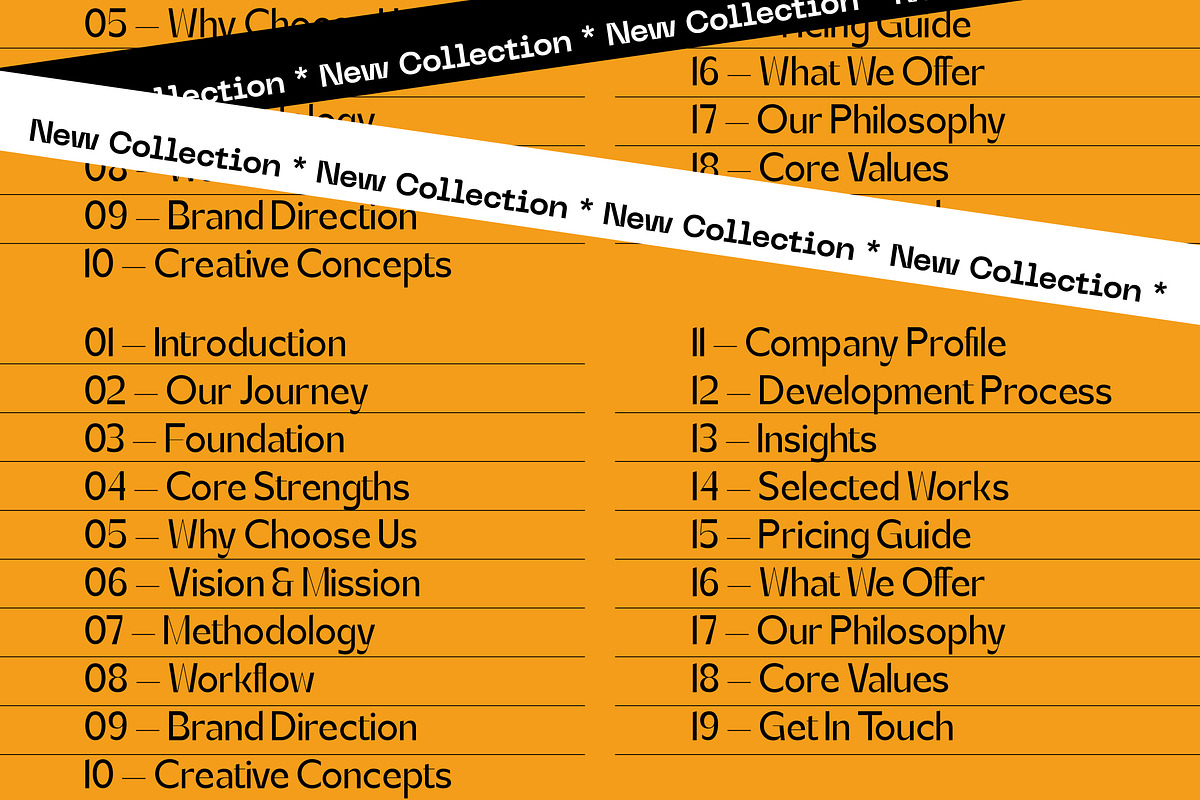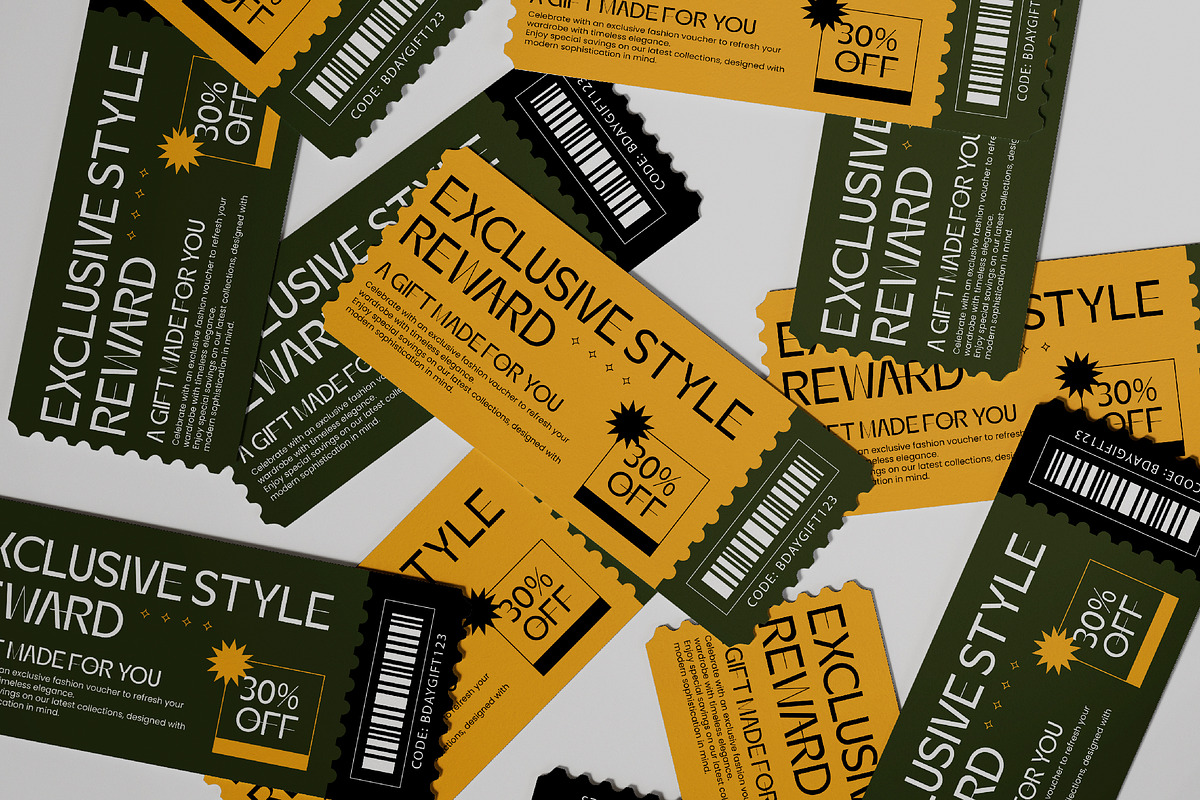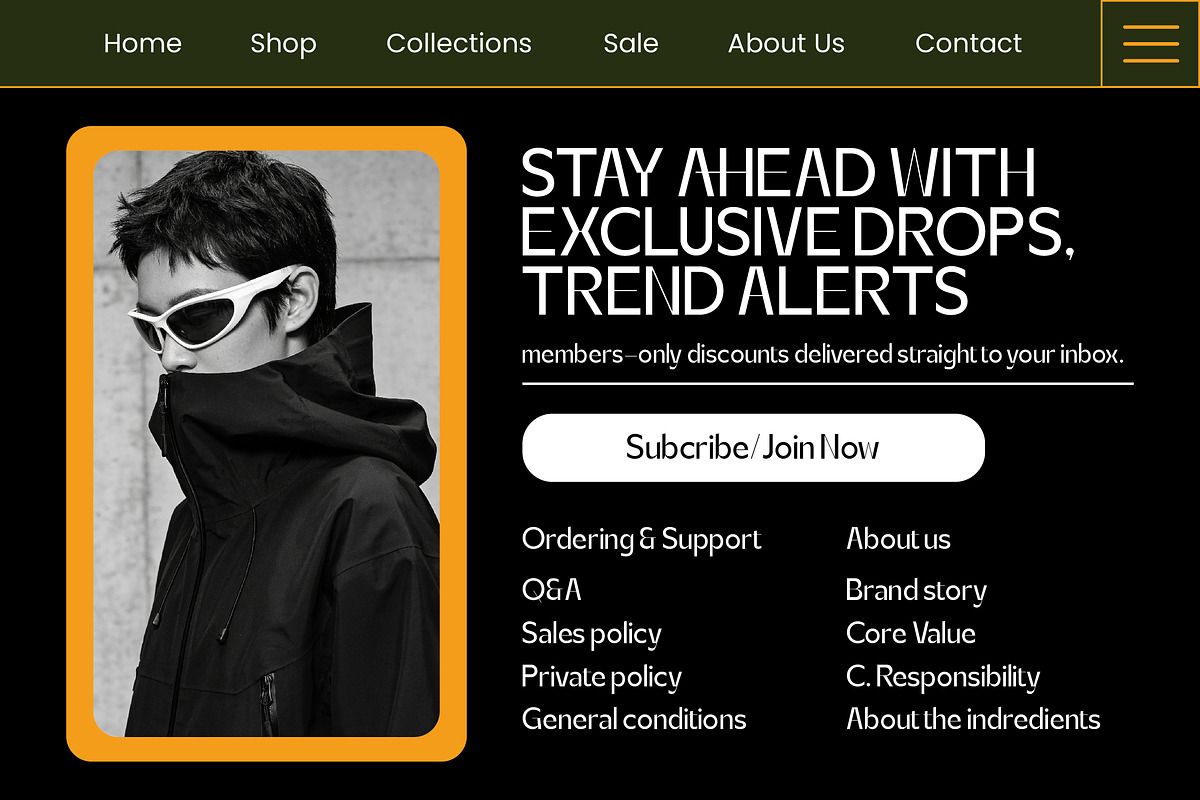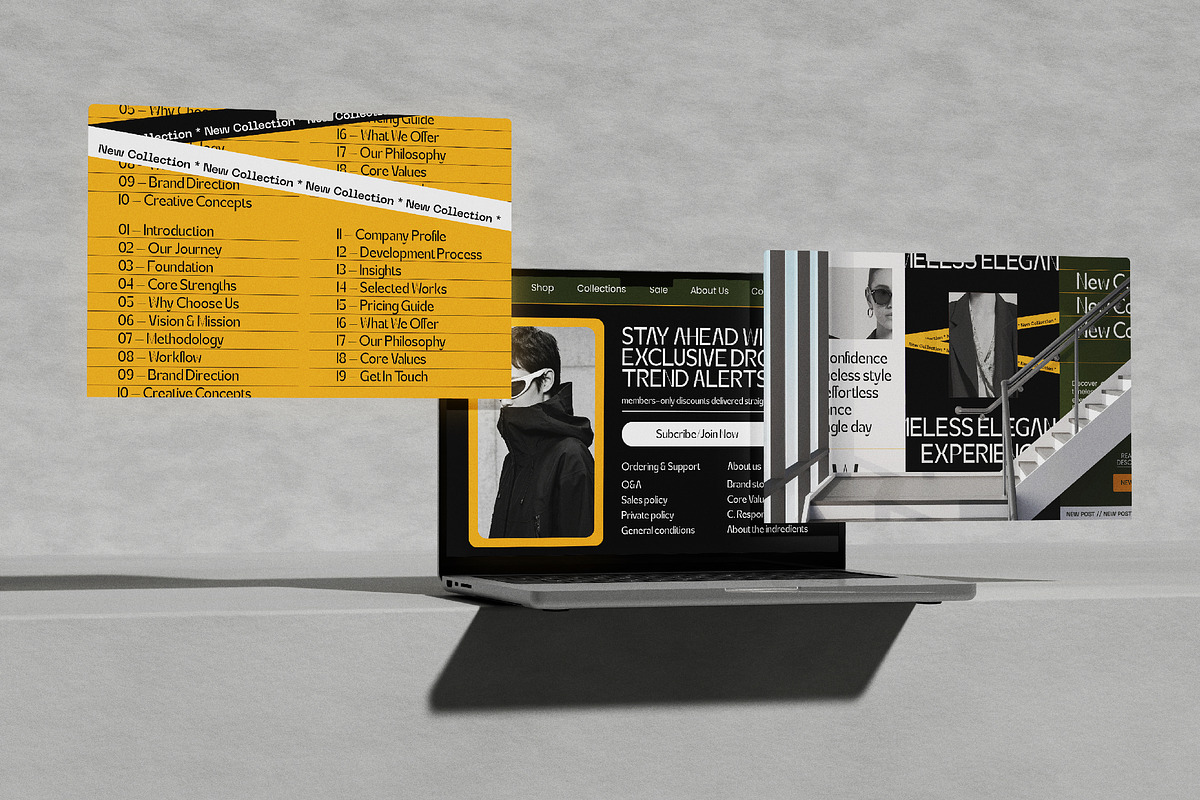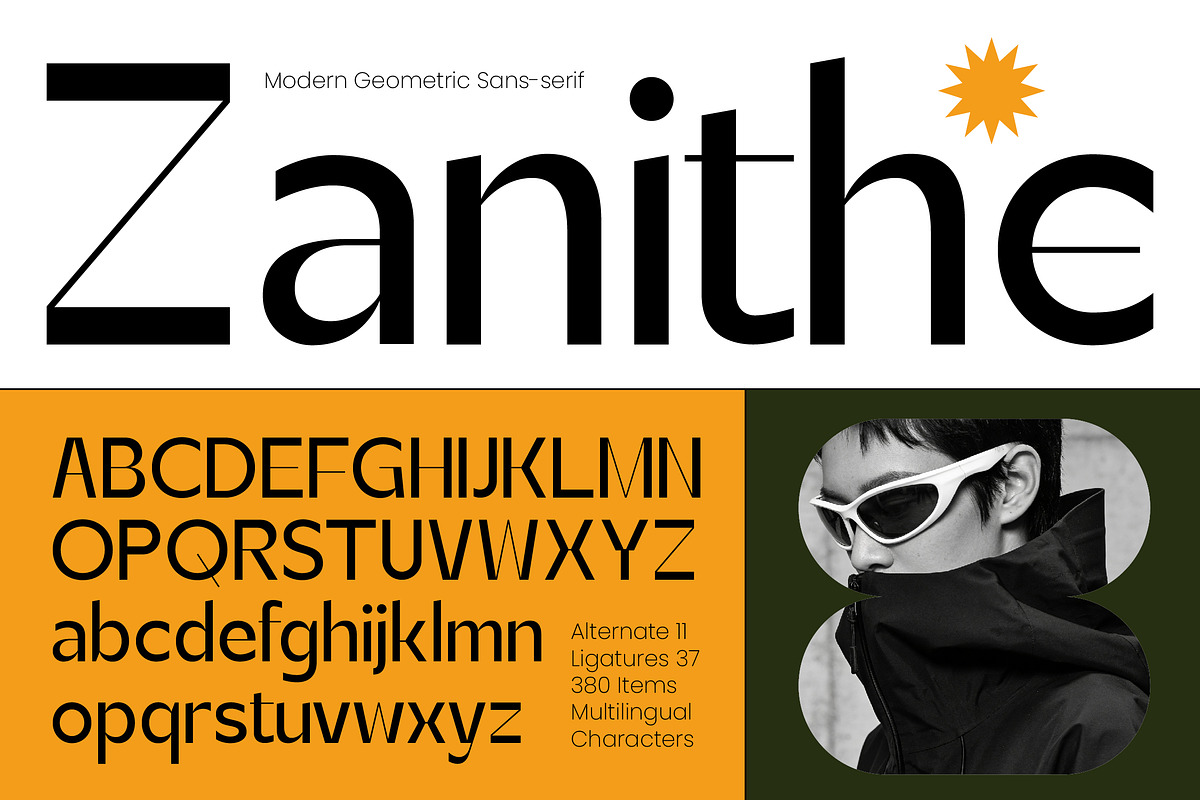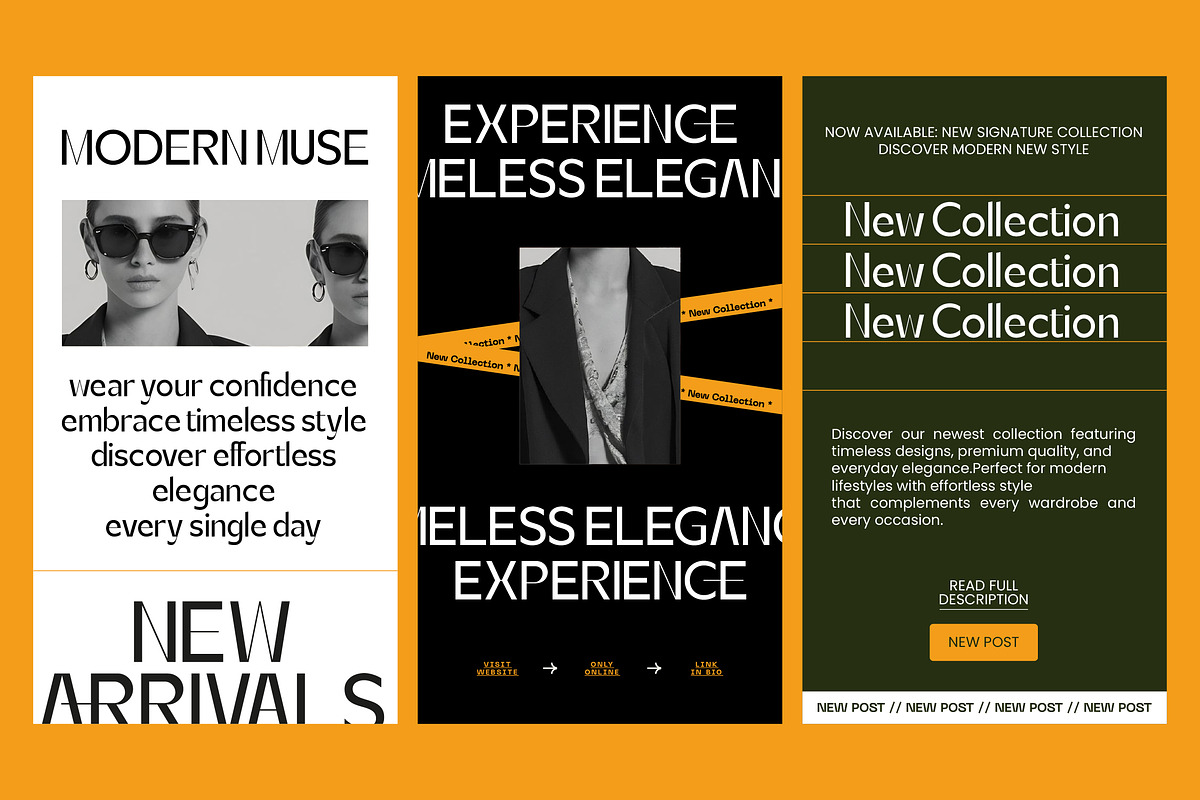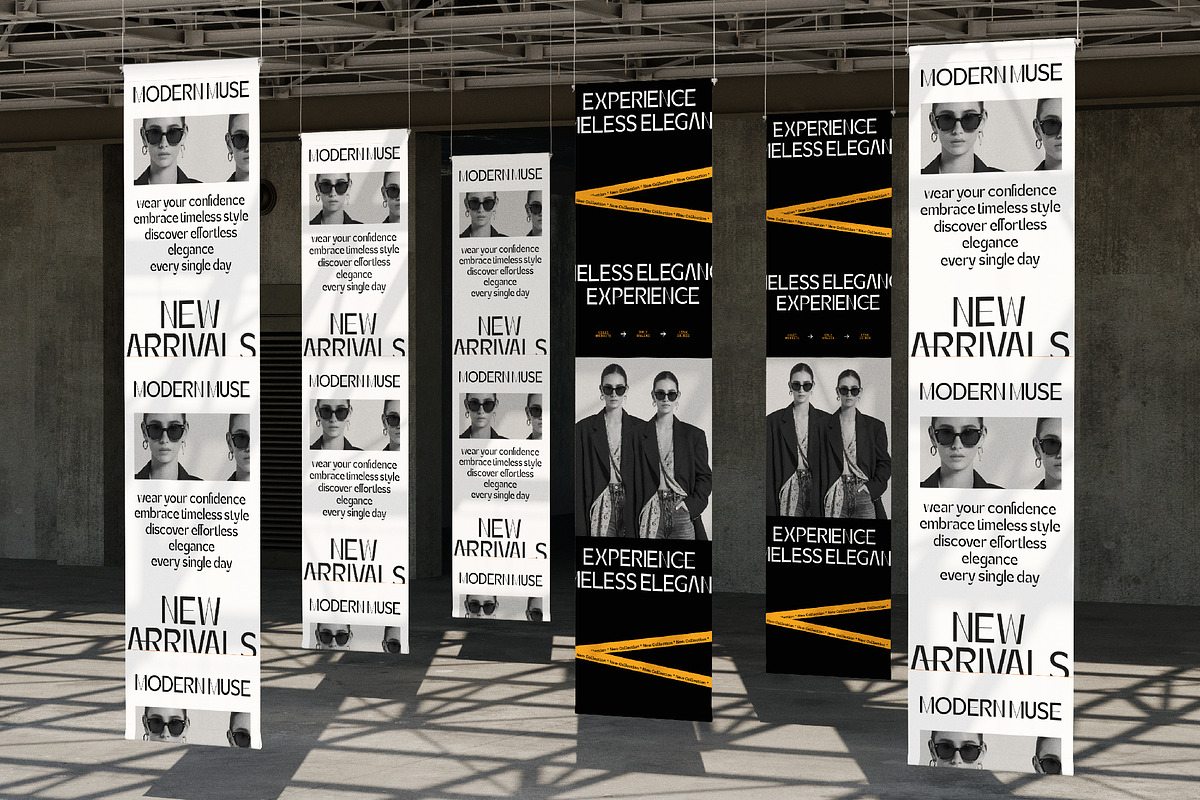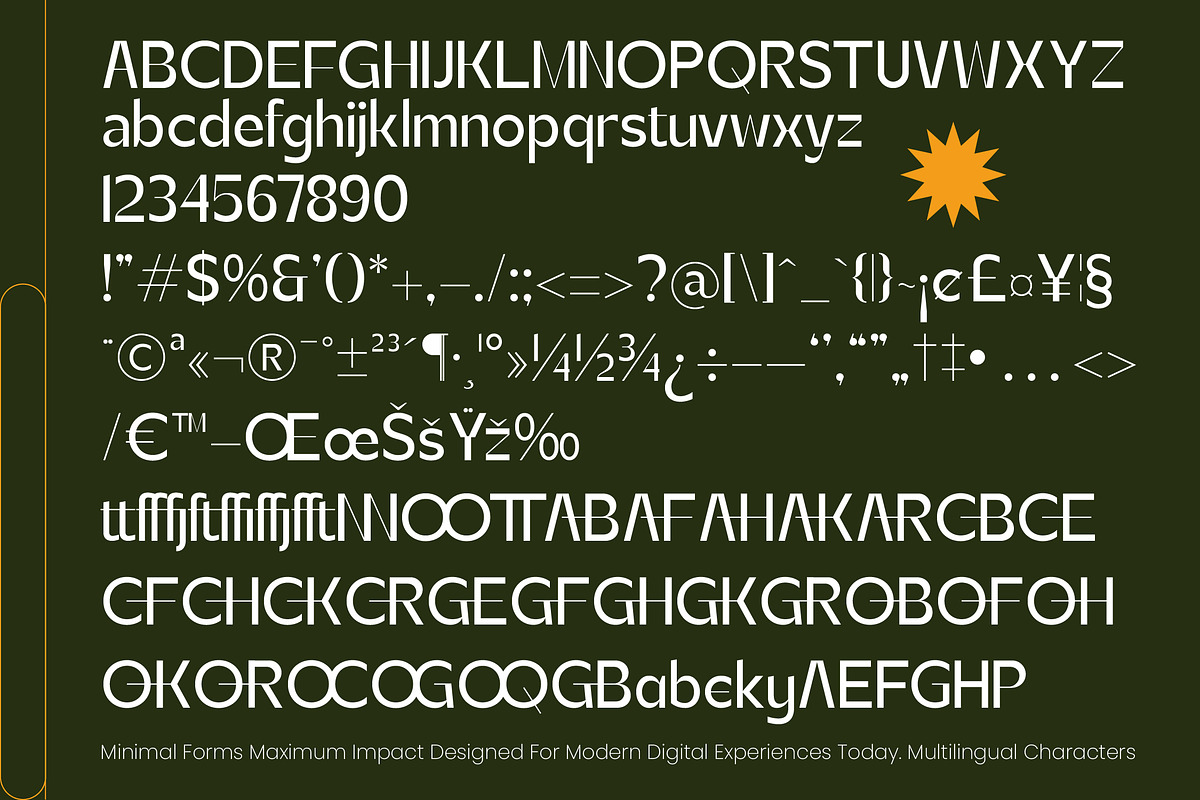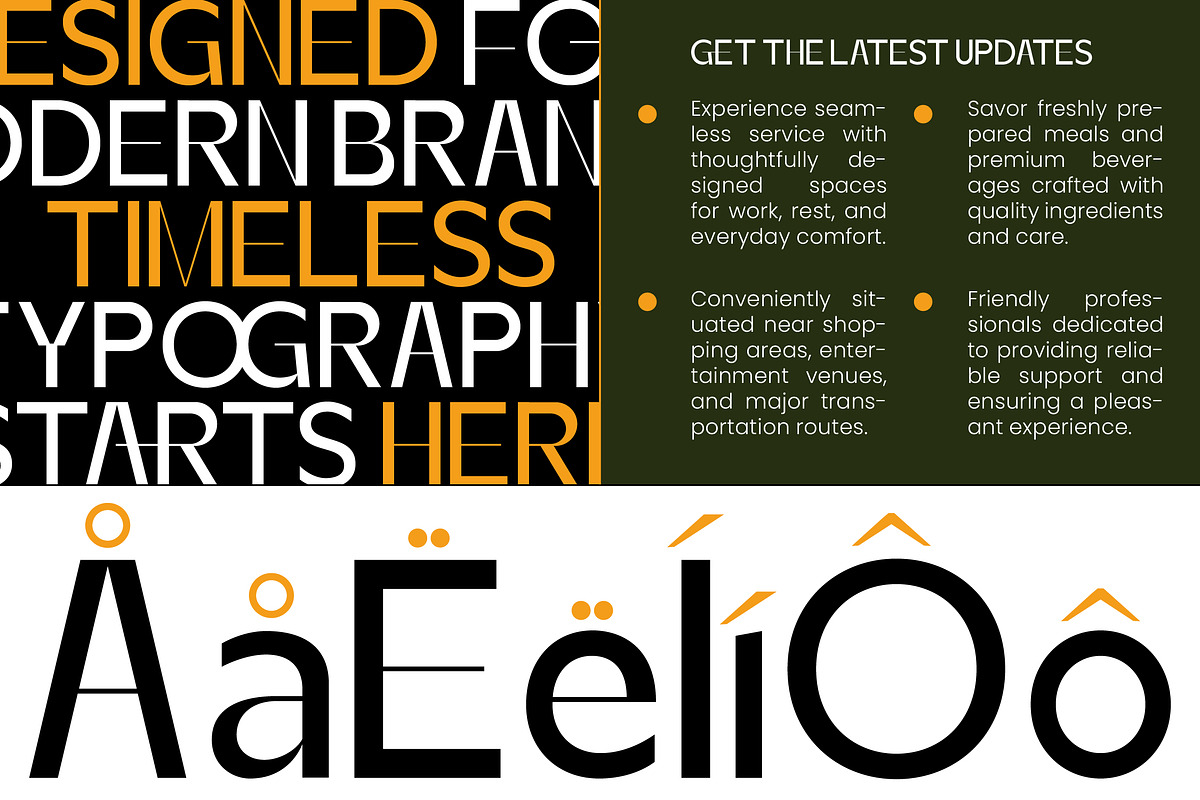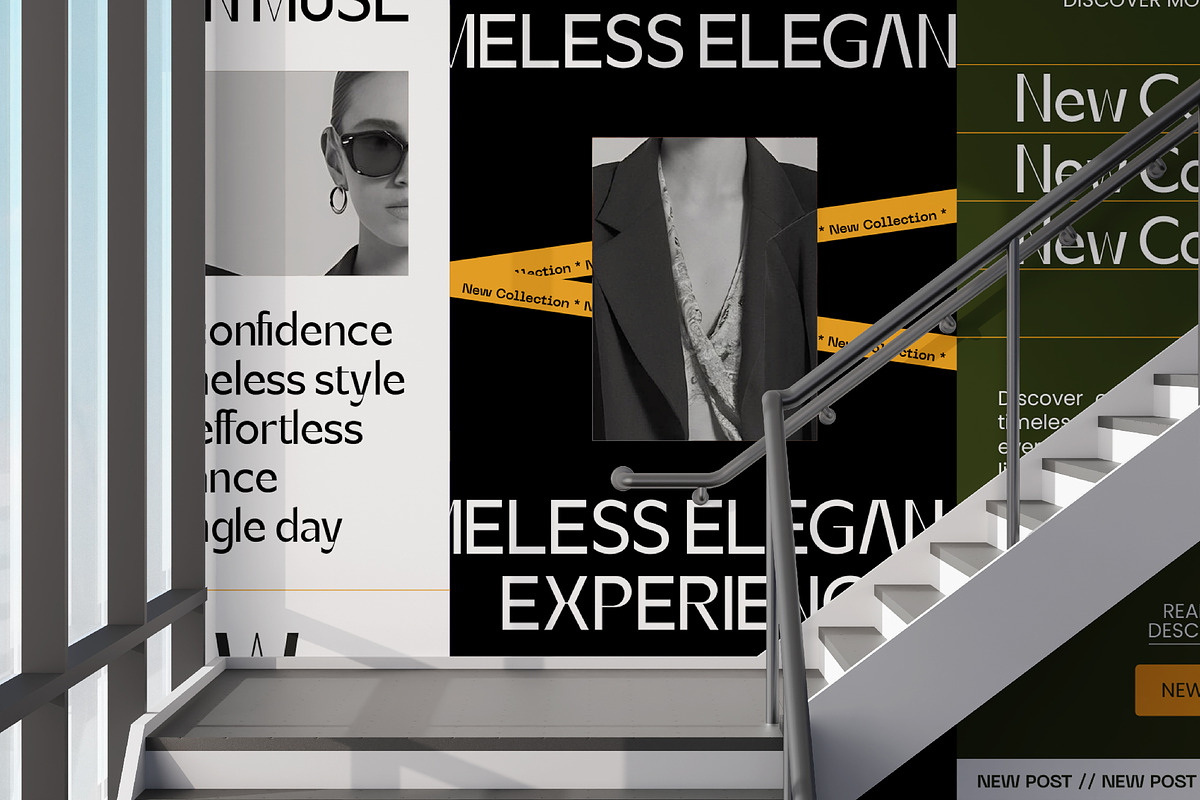
Zanithe Modern Geometric Sans Serif
Zanithe - Modern Geometric Sans Serif , Elevate your visual identity with Zanithe - Modern Geometric Sans Serif, a typeface that embodies contemporary elegance and architectural precision. This high-contrast sans serif blends minimalist geometric forms with a luxurious aesthetic, making it an essential tool for designers seeking a modern edge. The balance between its sharp angles and smooth curves ensures that Zanithe - Modern Geometric Sans Serif stands out as a premier display font for any forward-thinking brand.
Engineered for maximum impact, this typeface is the perfect choice for luxury branding, high-end fashion editorial, and premium packaging. Whether you are crafting a sleek logo or a sophisticated web layout, Zanithe - Modern Geometric Sans Serif provides the visual authority required for modern advertising and digital media. Its bold presence and clean lines make it ideal for editorial design where legibility and style must coexist seamlessly.
With its extensive multilingual support, Zanithe - Modern Geometric Sans Serif adapts seamlessly across global markets, making it incredibly versatile for international projects. This functionality is paired with 37 unique ligatures and stylistic alternates, allowing for bespoke typographic arrangements and creative flexibility. This comprehensive character set ensures that Zanithe - Modern Geometric Sans Serif maintains its refined look across various languages and localized campaigns.
Invest in a typeface that defines the future of design while maintaining timeless sophistication. By choosing Zanithe - Modern Geometric Sans Serif, you are opting for a professional-grade font that enhances brand perception and visual storytelling. Secure Zanithe - Modern Geometric Sans Serif today to transform your creative vision into a compelling commercial success and an elevated brand experience.